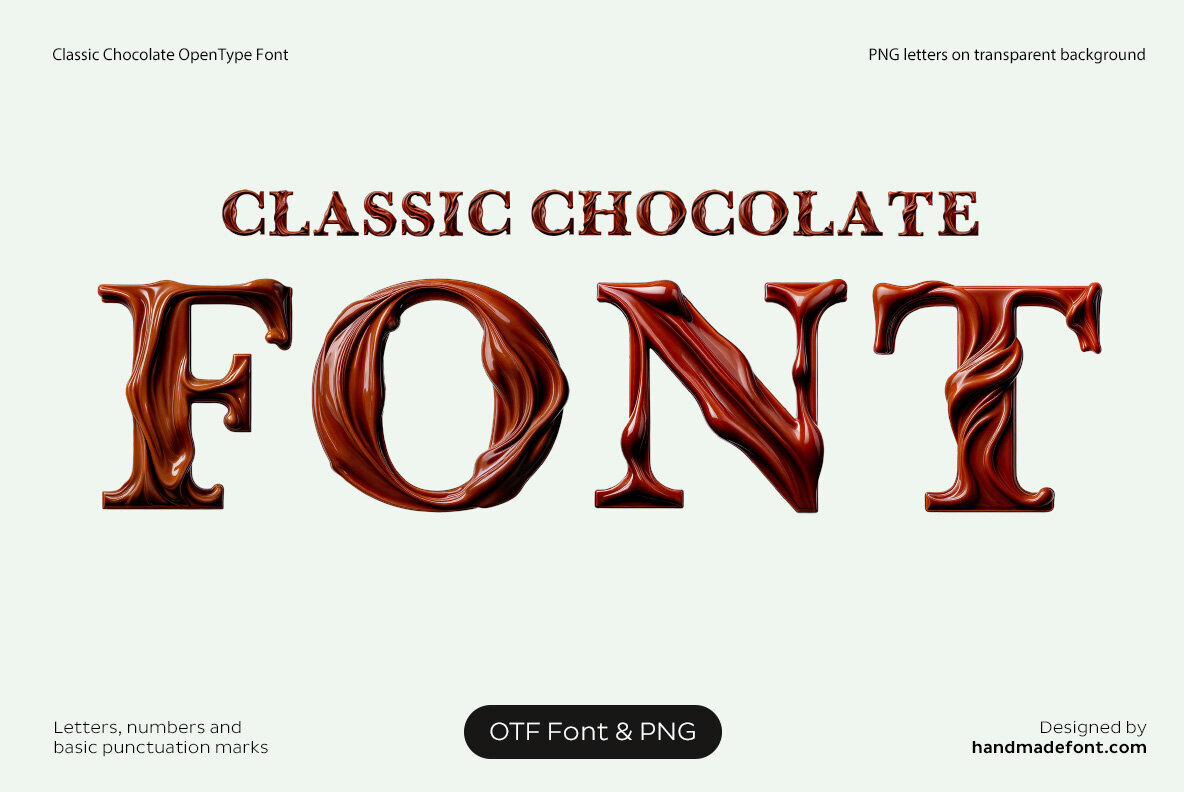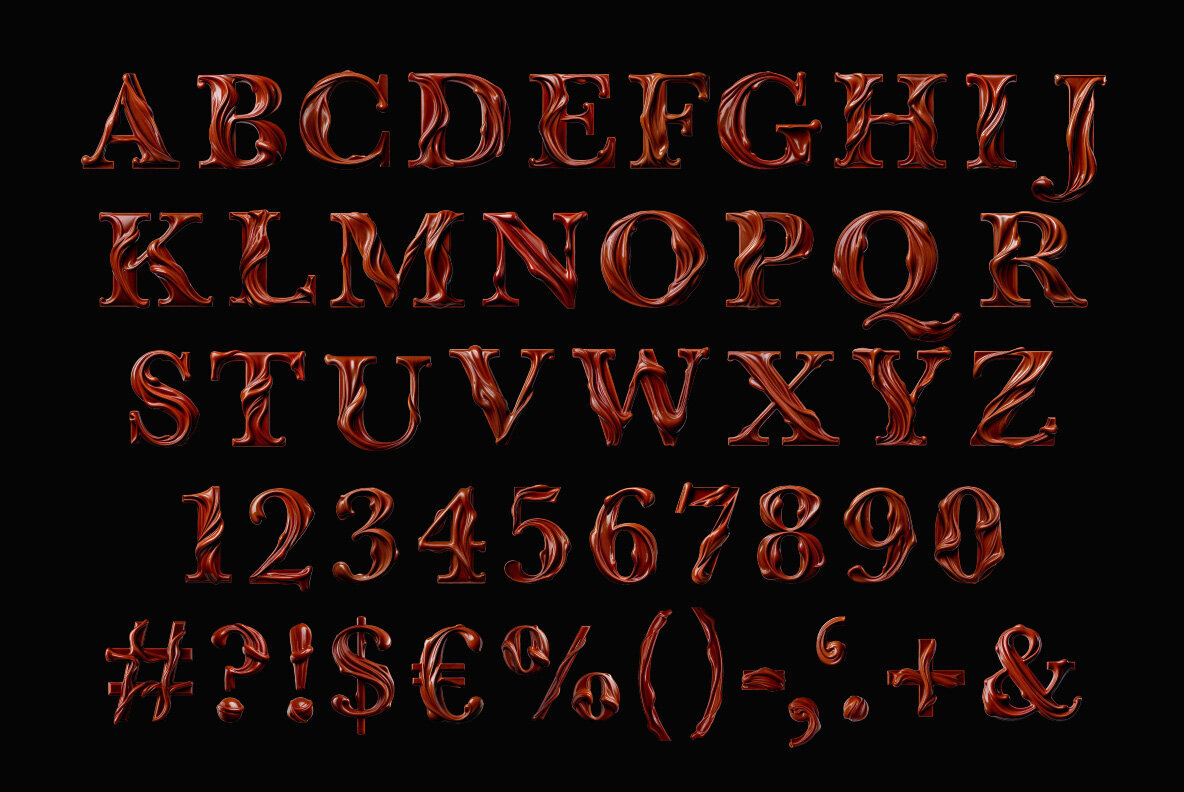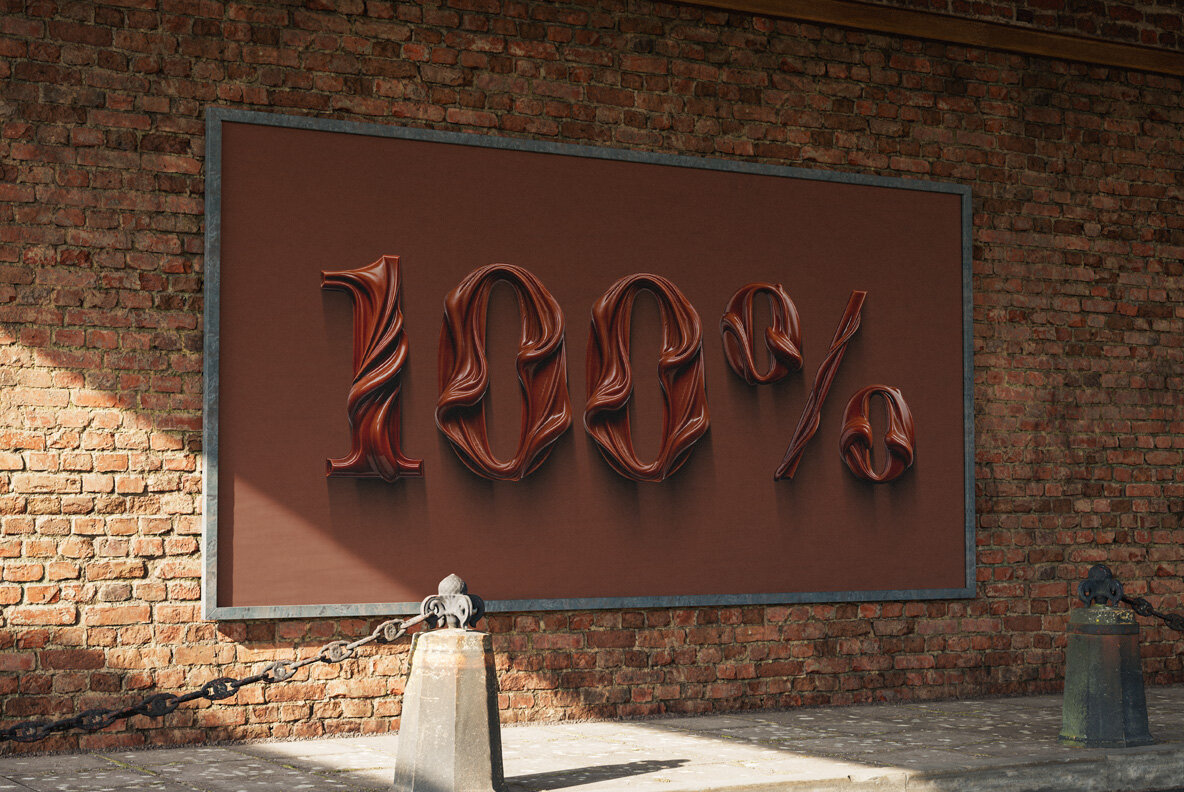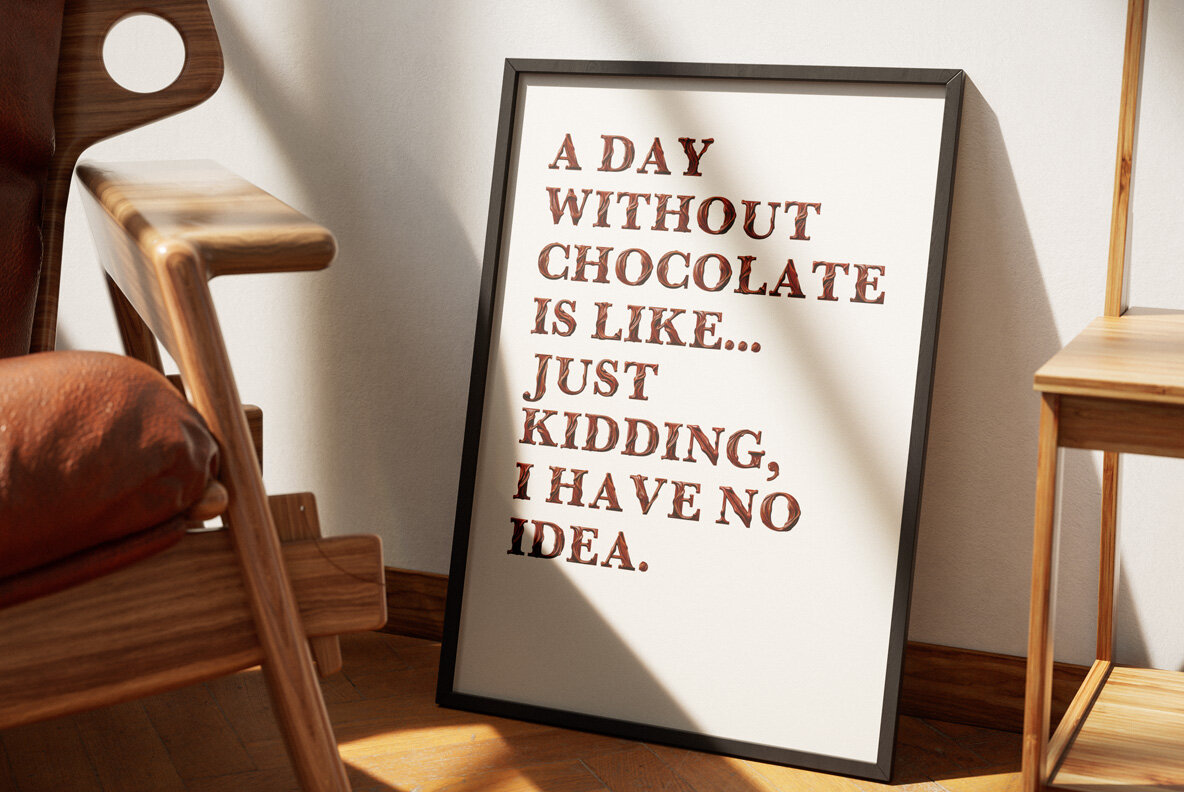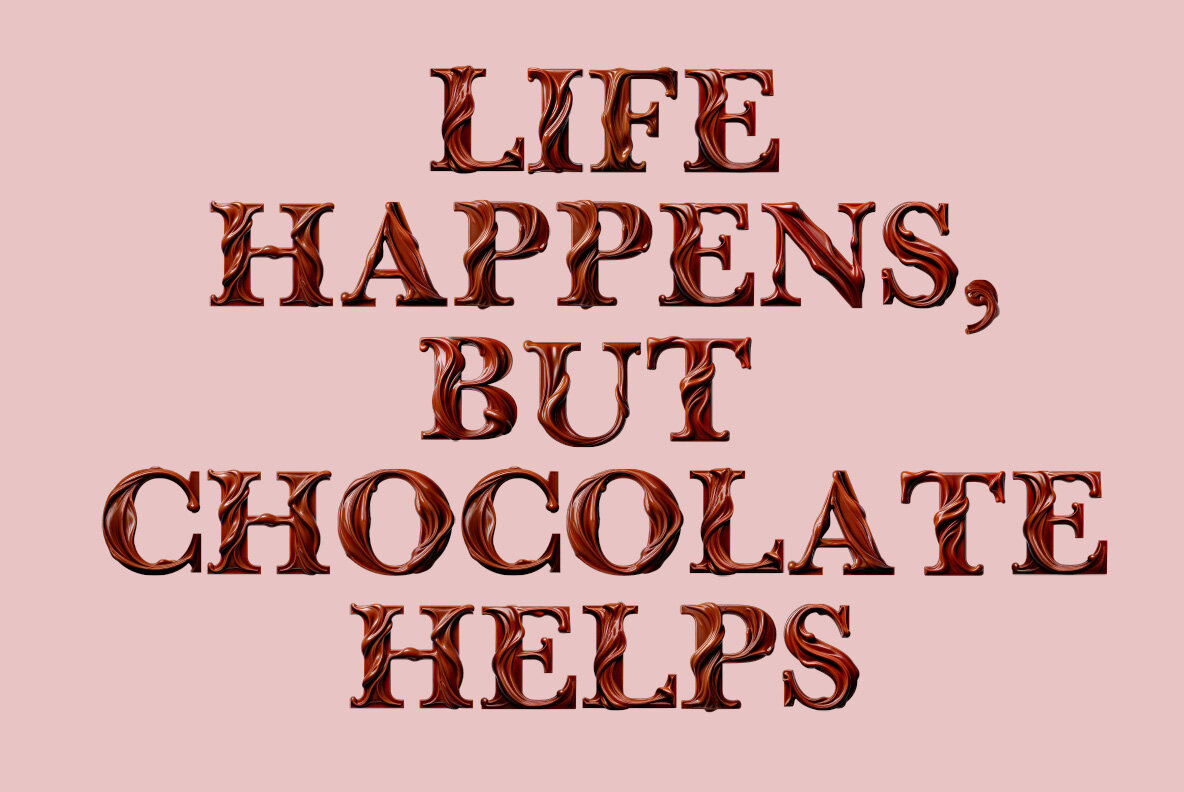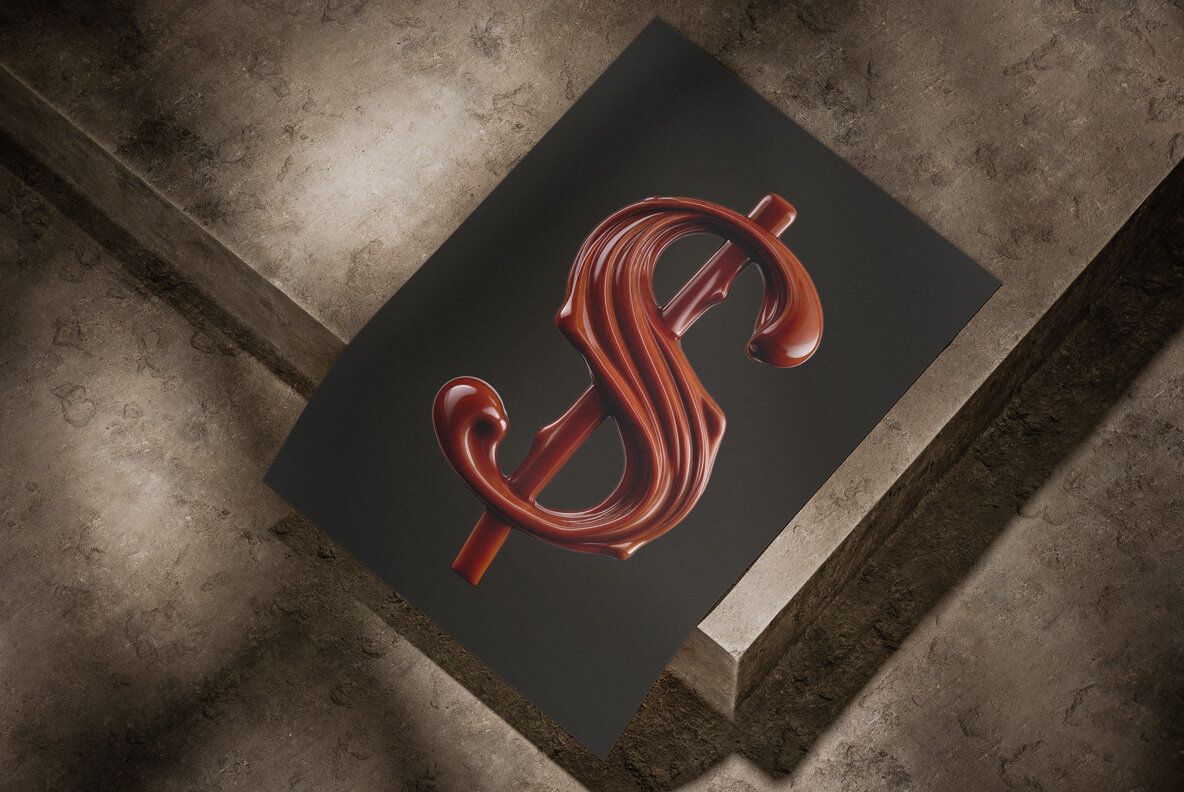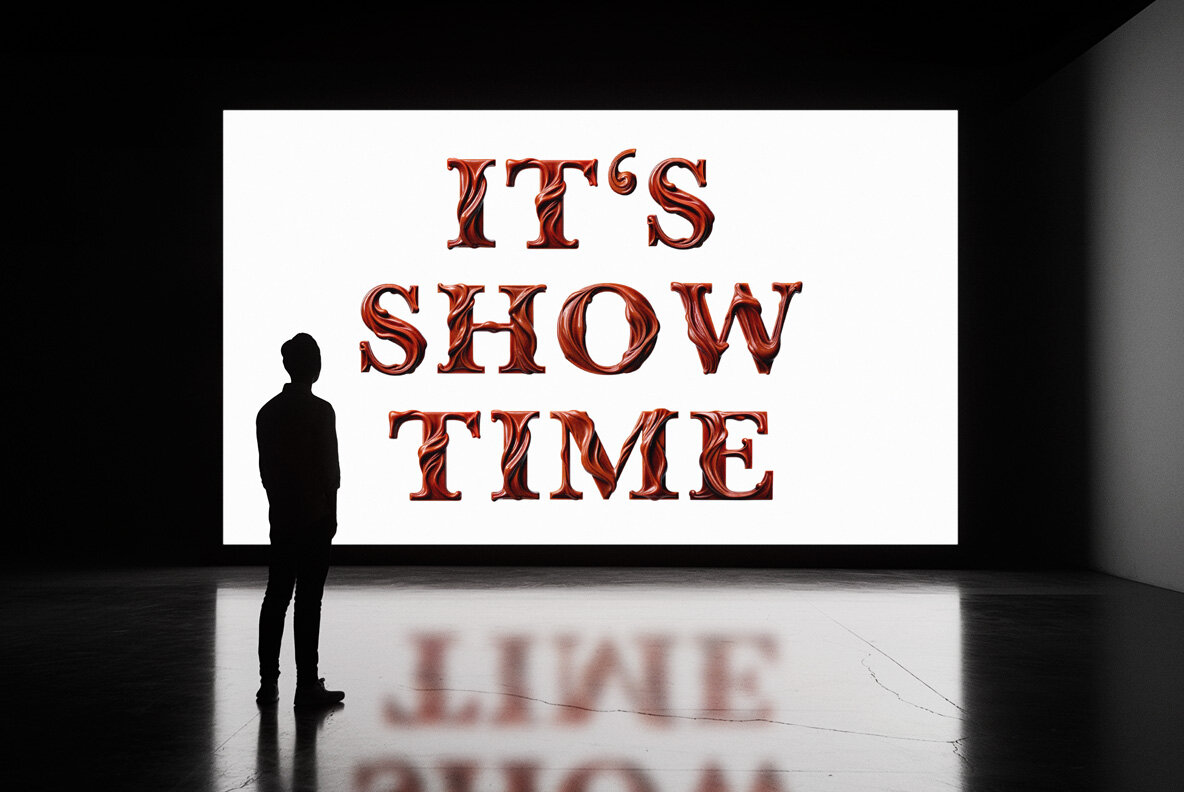
Classic Chocolate SVG is a delectable font that perfectly emulates the luxurious allure of smooth, glossy chocolate. Each carefully crafted letter embodies the rich, melted textures of fine chocolate, highlighted by artistic chocolate droplets that add a creative flair. With its creamy, glossy finish, this font transforms words into tempting confections, making it an ideal choice for designs that need a touch of elegance with a sweet twist. Whether you're working on branding, invitations, or playful projects, the Classic Chocolate Font offers a captivating and mouthwatering visual experience.